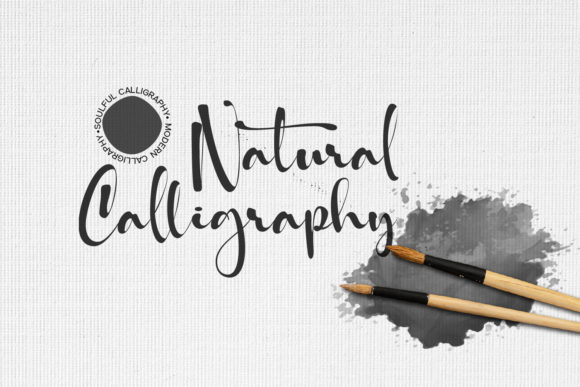
Souljah Font
db-ku.com - Script & Handwritten -- Souljah is a unique and elegant handwritten font. It looks beautiful on a variety of designs requiring a personalized style, such as wedding invitations, thank you cards, weddings, greeting cards, logos and so on. Souljah is PUA encoded which means you can access all of the glyphs and swashes with ease!